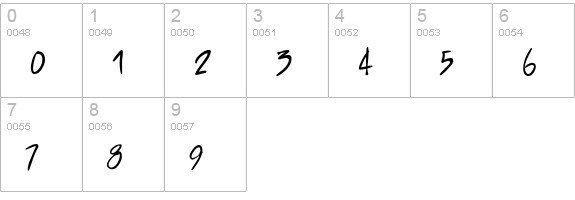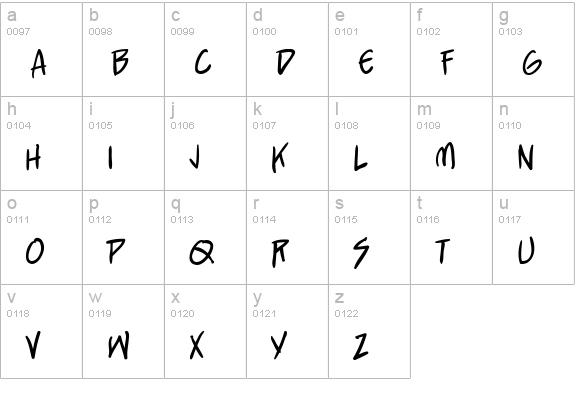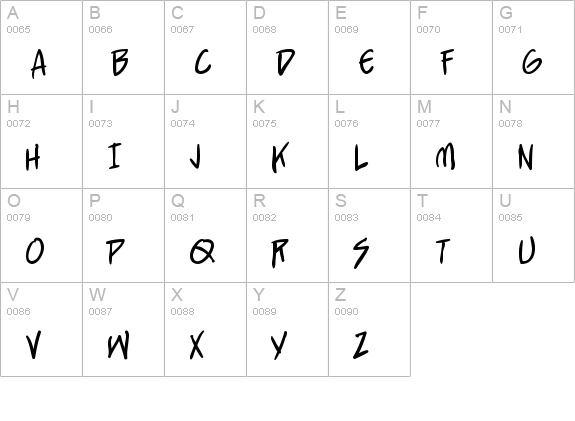
StraightJacket BB Font Details
StraightJacket BB font is a bold and eye-catching display font that exudes a sense of strength and modernity. With its clean lines and sharp edges, this font is perfect for making a statement in headers, logos, posters, and more. The unique design of StraightJacket BB font adds a touch of edginess and sophistication to any project. And the best part? StraightJacket BB font is available for free download at FontsMarket.com. Whether you're a designer looking to add a unique touch to your creations or a business owner in need of a standout font for branding, StraightJacket BB font is the perfect choice. Download it today and unleash its creative potential in your next project!